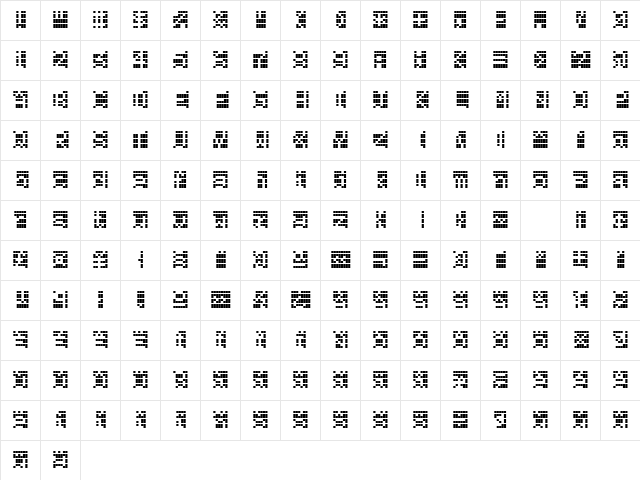
Automation Grid Regular Font Preview
Automation Grid Regular
Automation Grid Regular Font Details
Design Context for Automation Grid Typeface
Automation Grid takes a measured approach to typography — its balanced proportions and neutral character make it a reliable workhorse for both digital and print work.